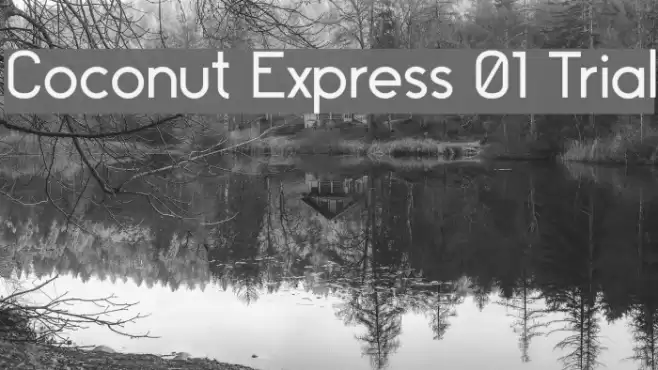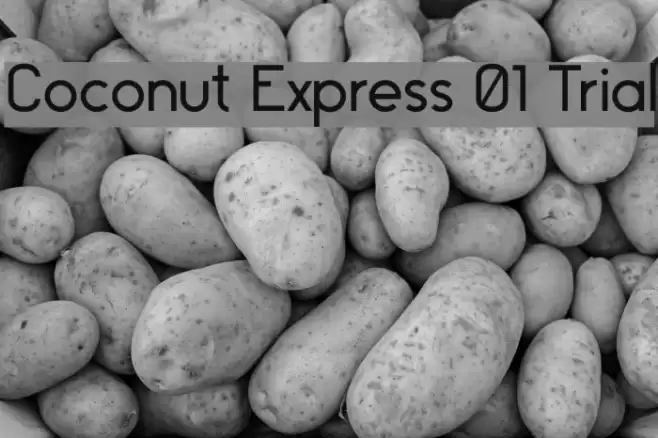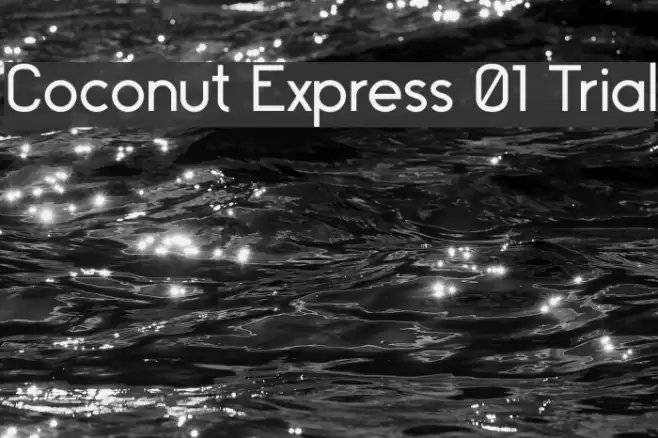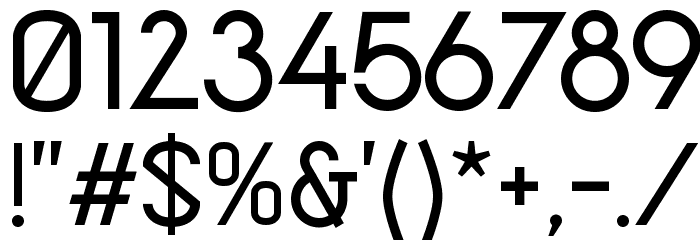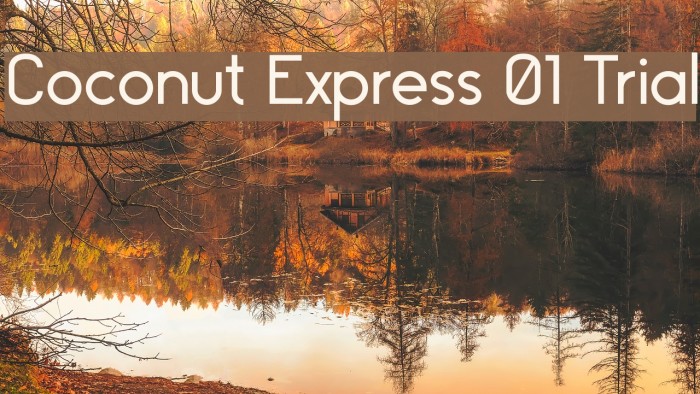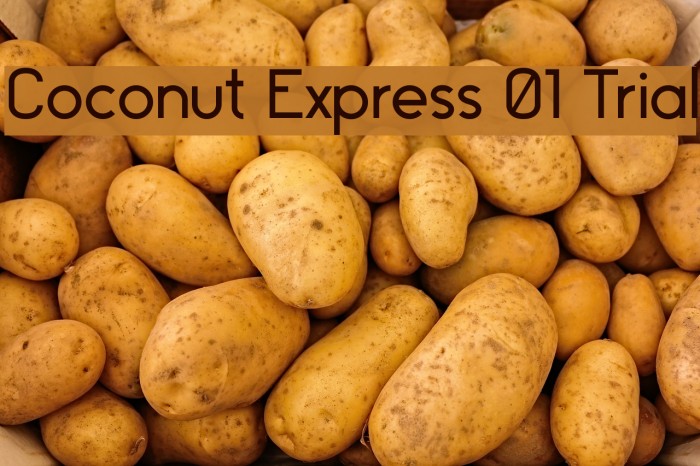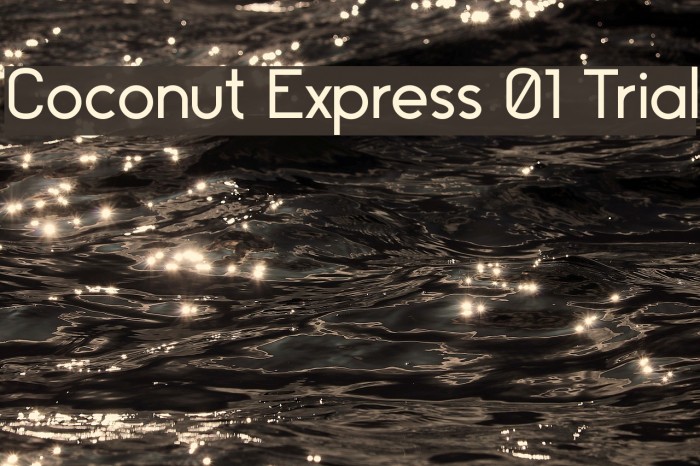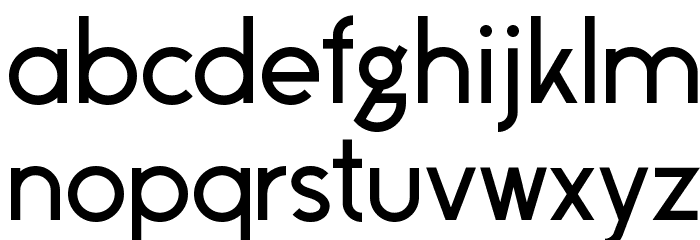
Coconut Express 01 Trial Font
Coconut Express 01 Trial Description
This font features a clean and modern sans-serif design with a geometric structure. The characters are well-balanced, with uniform stroke widths that provide a harmonious appearance. The uppercase letters are bold and assertive, while the lowercase letters maintain a friendly and approachable feel. The numerals are clear and easy to read, making them suitable for a variety of applications. Special characters are distinct and integrate seamlessly with the rest of the typeface, ensuring versatility in design projects.
A modern, geometric sans-serif font with balanced strokes and clear readability.
- Proposed Projects: Ideal for branding, advertising, web design, and editorial layouts where clarity and modernity are key.
- Category: Sans-Serif